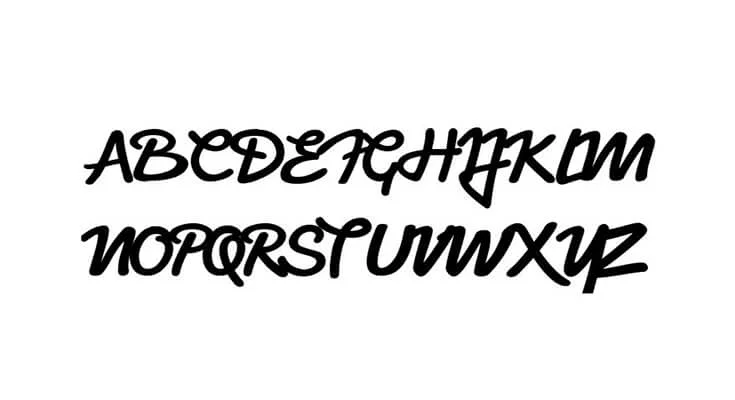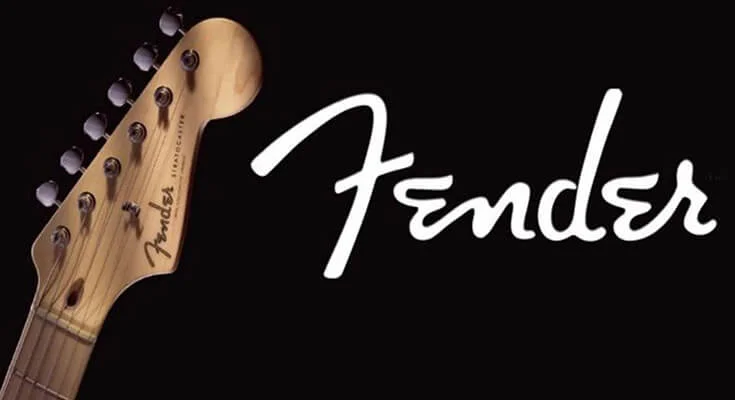
Introducing Fender Font! Fender is an American musical gadgets conglomerate that is a leading manufacturer of stringed instruments and amplifiers.
This enterprise is exceptionally known for its compact body electric and bass guitars. Especially for the Stratocaster, Telecaster, Precision Bass, and Jazz bass.
All the staff and even the typeface used in the company logo are unique and attractive. Many designers are practicing this with their ongoing projects.
“[Strato Linked by Bastien Sozoo is a font based on the Fender logo]”. Its letterforms, including this cursive font, have a high level of clarity and smart features.
“This font includes 188 glyphs, numbers, symbols, and a few punctuation marks. Moreover, it also supports 46 multilingual languages“.
Fender Font (Information)
Font Name:Fender Font Family
Style:Logo, Handwritten, Display
Font Designer:Bastien Sozoo
Its simple and bold design makes it easy to read on different backgrounds, while its unique details, such as the guitar headstock shapes in some letters, give it personality.
• This font family is ideal for creating stunning logos, covers, posters, headings, banners, card crafting, print approaches, and much more. It would also be a smart idea to use it in developing a game or template for a site.
• The font is also used in various applications, from logos to packaging, posters, cards, headers, signs, and merchandise. Overall, Fender font is a great choice for music-related projects or those seeking a vintage and classic look.
What is the Fender guitar font?
Strato Linked by Bastien Sozoo is a font based on the Fender guitar.
Who designed the Fender logo?
The Fender logo was designed in the 1950s by company founder Leo Fender.